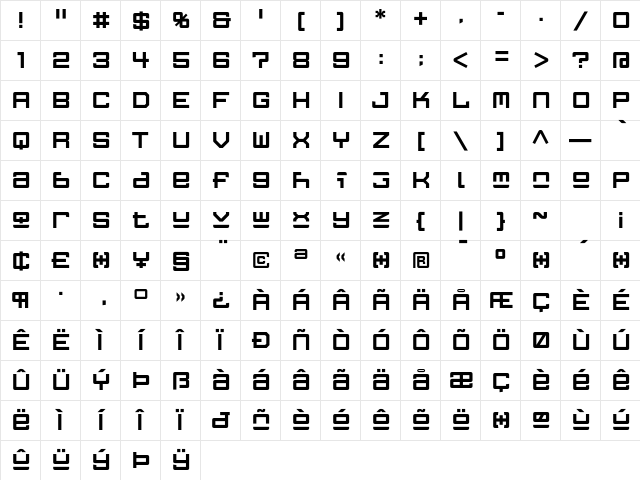
FFGothic OneOne Free Font
FFGothic OneOne
Style: OneOne
Design Context for FFGothic
FFGothic has a distinctly futuristic character, with geometric precision and clean angles that feel at home in technology, gaming, and sci-fi contexts.